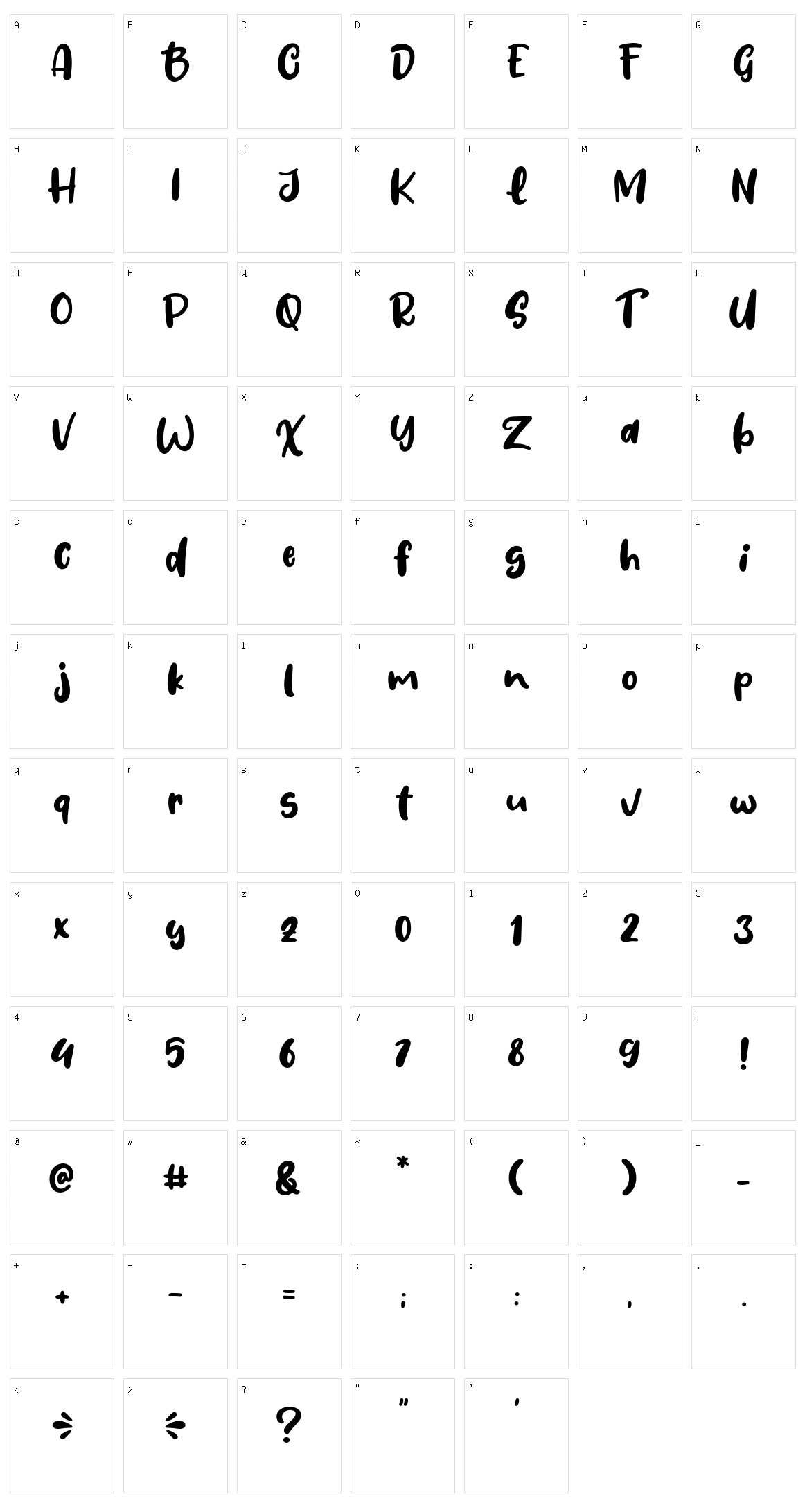
The free font Fresh Lychee is carefully designed by Khurasan, showcasing a thoughtful balance of creativity and usability and falls under the Cartoon font style. When you download the ZIP file, it contains only 598.97 KB of font files, making it lightweight and quick to download. Please review the license details below to understand permitted usage and distribution rights. If license information is not available, we recommend using this font for personal projects only or contacting the author directly for commercial usage permissions.